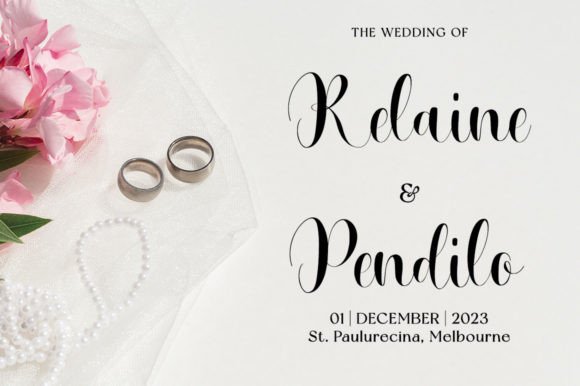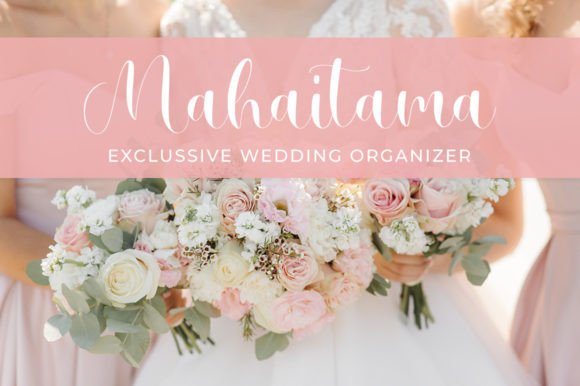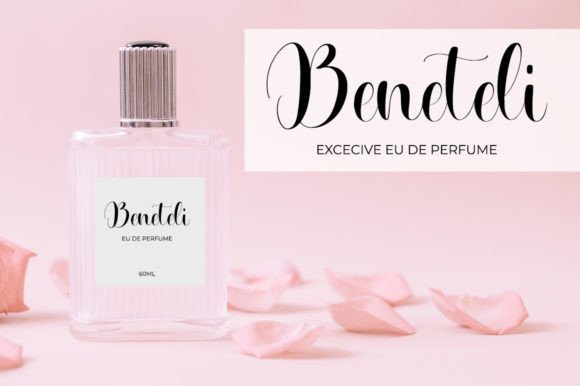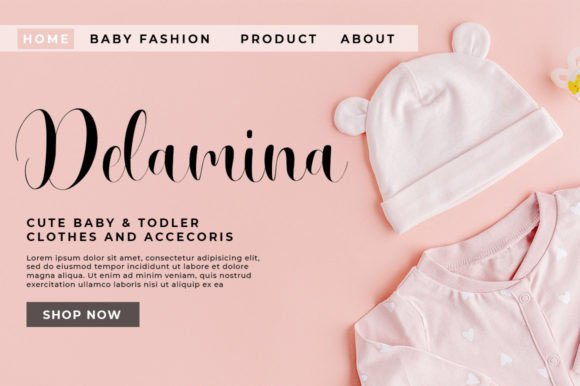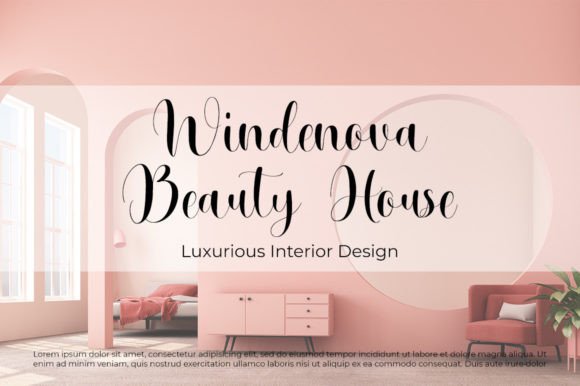
Introduction to Plethora Font
Introducing Plethora, a stylish script font that offers a personal touch to your latest art project with an elegant, classy, and modern look.
The Plethora Script offers gorgeous typographic perfect for many different projects such as logos & branding, invitations, stationery, wedding designs, social media posts, advertisements, product packaging, product designs, labels, photography, watermarks, special events, or anything that needs handwriting taste .
Plethora Font offers exceptional quality and versatility, making it a valuable addition to your design toolkit. Whether you’re creating for personal projects or commercial use, Plethora Font delivers professional results.